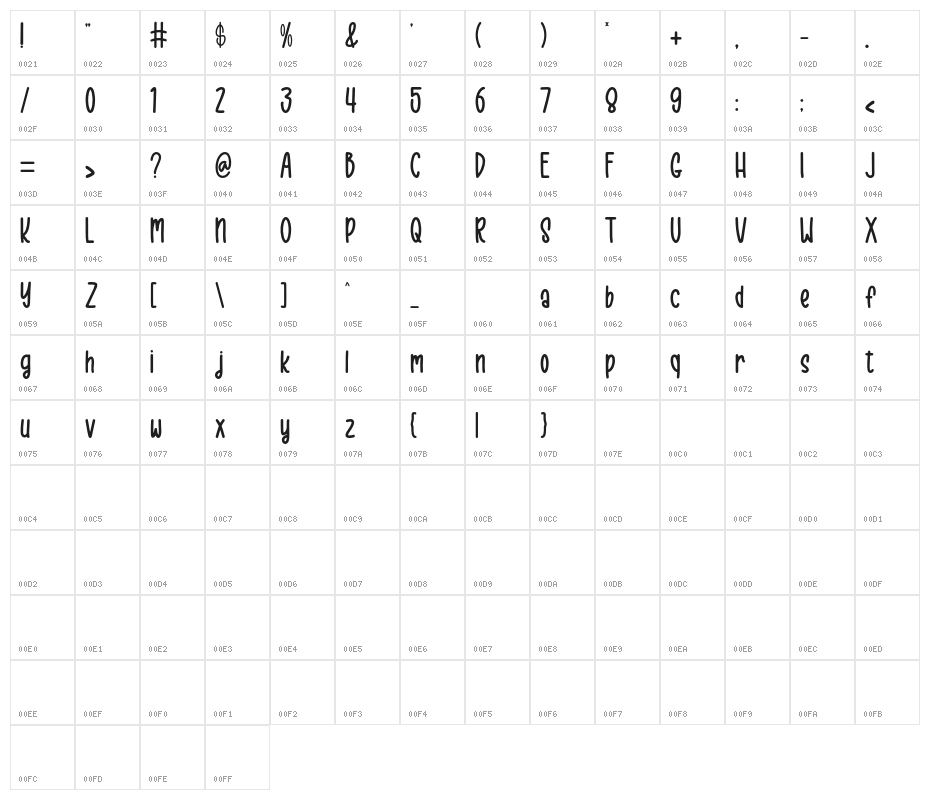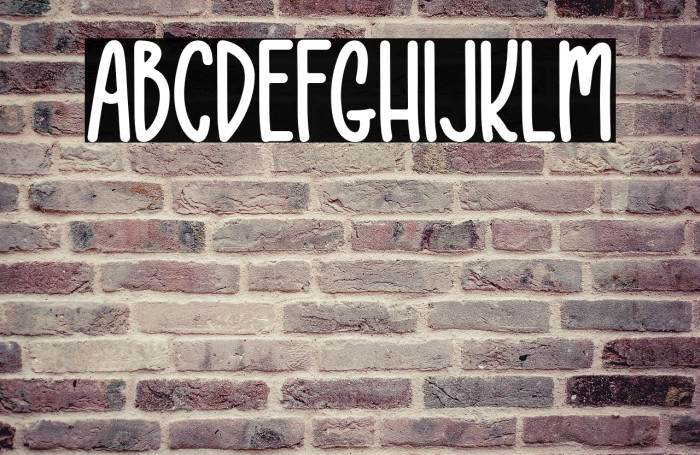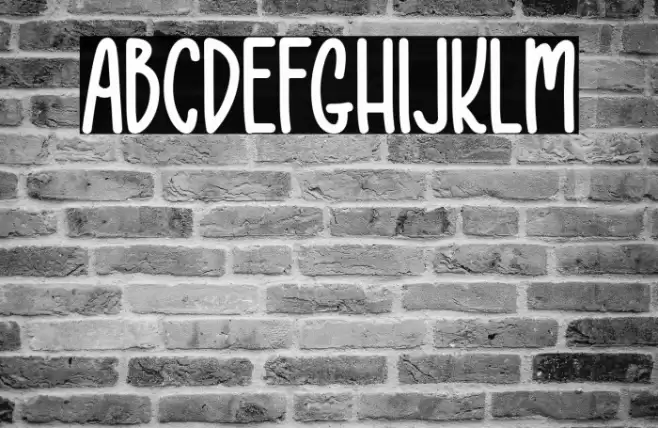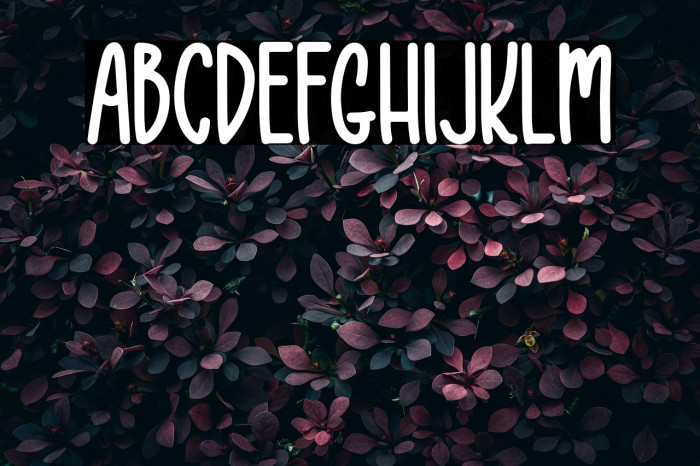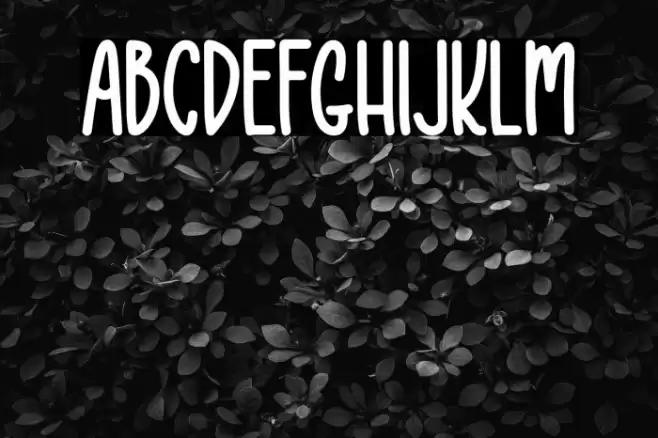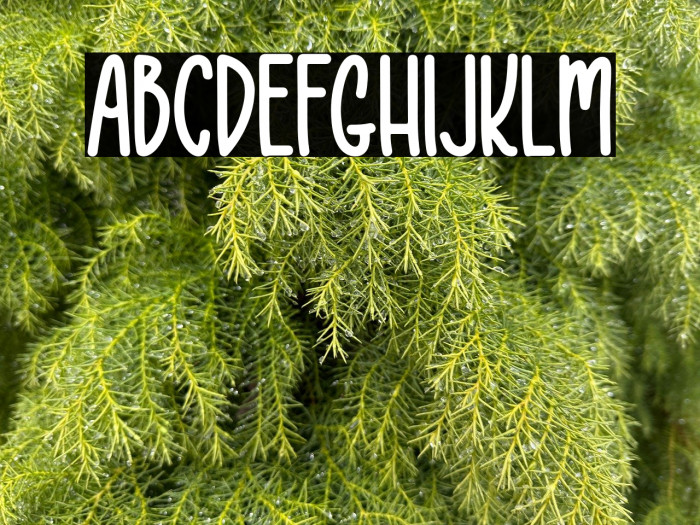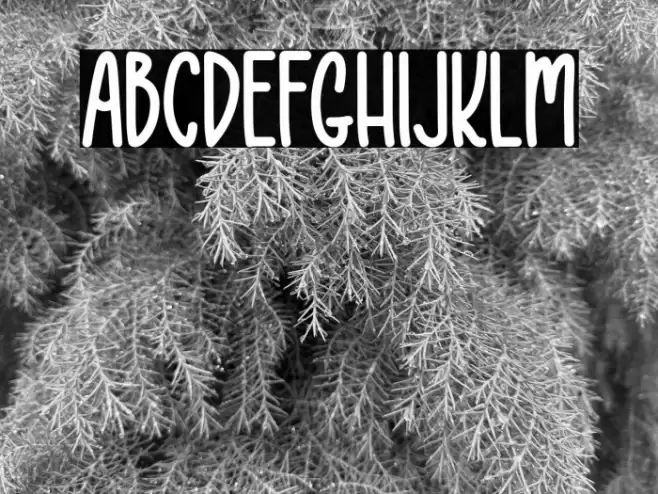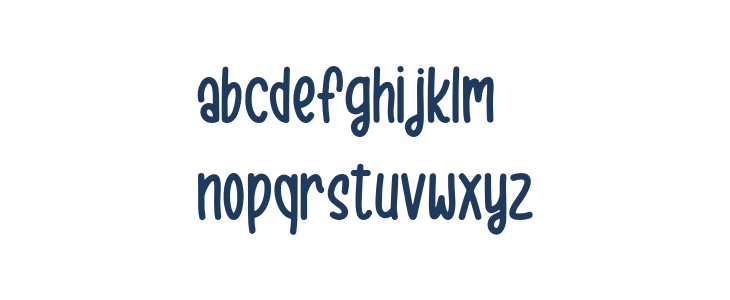
One Shot Font
One Shot Description
This font features a playful and casual handwritten style, characterized by its rounded and slightly irregular letterforms. The strokes are consistent in width, giving it a uniform appearance while maintaining a friendly and approachable feel. The uppercase and lowercase letters are well-balanced, with a slight slant that adds to its informal charm. The numerals and special characters are designed to match the overall aesthetic, making it versatile for various uses. This font is ideal for projects that require a personal touch, such as invitations, greeting cards, or children's book covers.
| Proposed Projects | Ideal for invitations, greeting cards, children's books, and playful branding. |